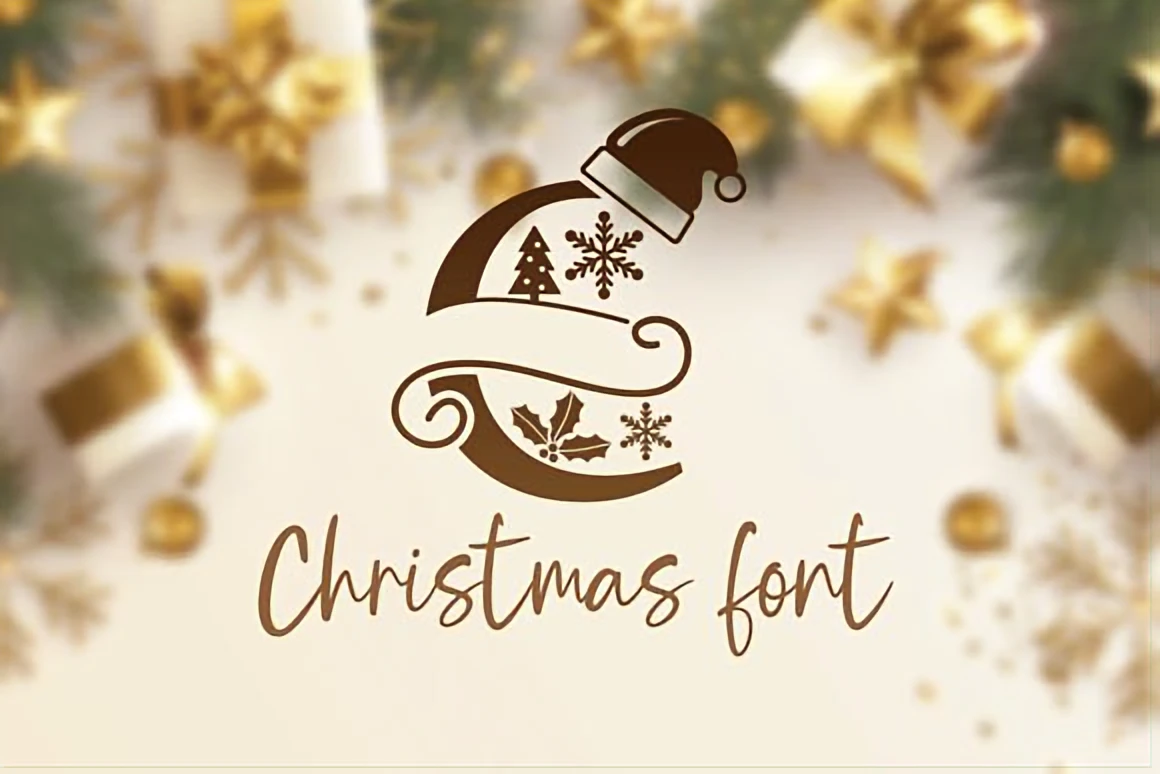
The Christmas Font is a handwritten style that brings the warmth of the holidays to your projects. Its curves and calligraphy give a classic, cozy feel to any design.
This font works well for Christmas cards, invites, gift tags, social media posts, and even event signs. It gives a personal, appealing touch to both online and printed materials.
Use it for wedding invites, winter ads, product labels, logos, quotes, and retro Christmas designs. It goes great with gold details, winter pictures, and other holiday elements.
From old-fashioned Christmas looks to modern holiday branding, this font fits right in. It helps your designs get noticed and brings a bit of holiday cheer.